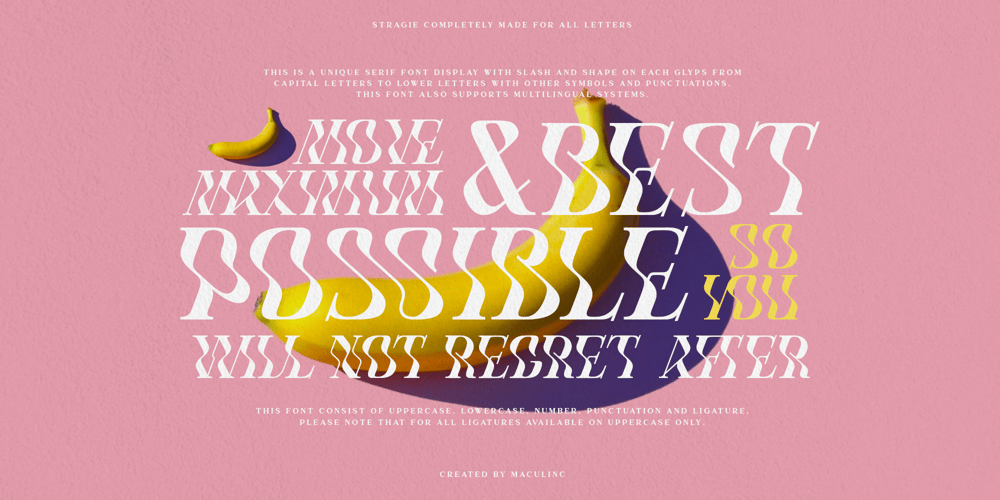
Stragie Display Font Font Family was designed by Lukmanul Khikmatullah and published by Maculinc. Stragie Display Font contains 1 styles and family package options. Stragie is a unique serif font display with italics and formed on each glyps of uppercase letters, lowercase letters, numbers, symbols and other punctuation marks. For Uppercase and Lowercase made in the same form, this font also supports Multilingual system.Stragie consists of Uppercase, Lowercase, Numbering, Punctuation and Ligature. Please note that all available Ligatures are in Uppercase only.1 Display FontMultilingual SupportIf you are looking for a custom font or web license, and for support, feel free to contact us at maculinc@gmail.comThank you for visiting us and don’t forget to follow us :Behance ( https://www.behance.net/maculinc )Dribbble ( https://dribbble.com/Maculinc )Instagram ( https://www.instagram.com/maculinc/ )